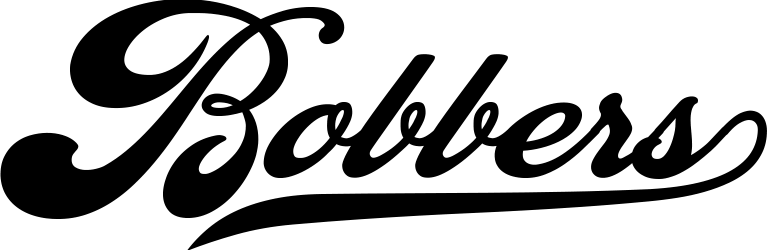
Bobbers Font
Another old-school font is here to help you get what you fancy in no time. This baseball script font with wavy letters can be great for beauty projects, logos, businesses, postal cards, etc. Make an elegant design with t…
Another old-school font is here to help you get what you fancy in no time. This baseball script font with wavy letters can be great for beauty projects, logos, businesses, postal cards, etc. Make an elegant design with the help of Bobbers and amaze your clients. Bear in mind that this vintage baseball font doesn’t contain numbers and punctuation.